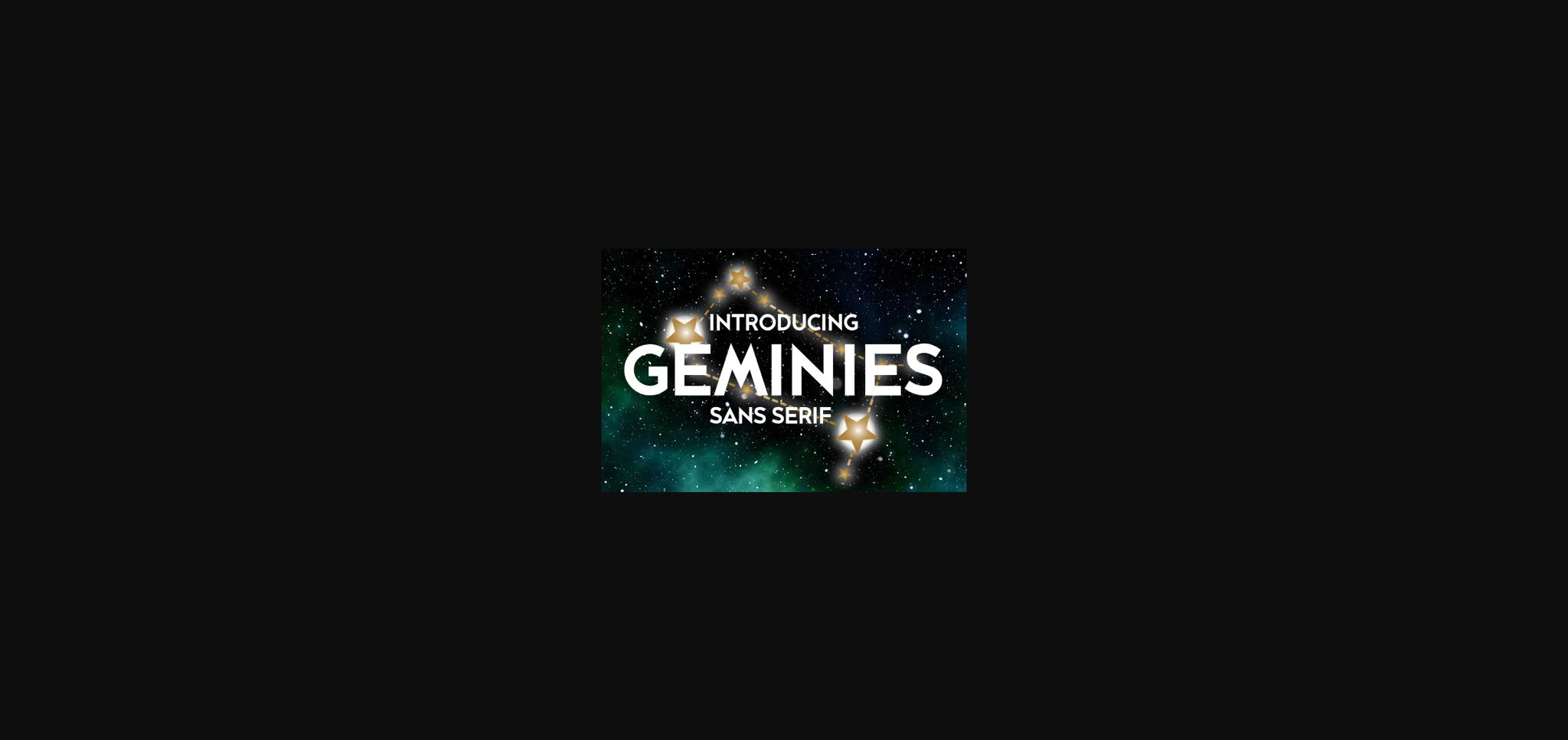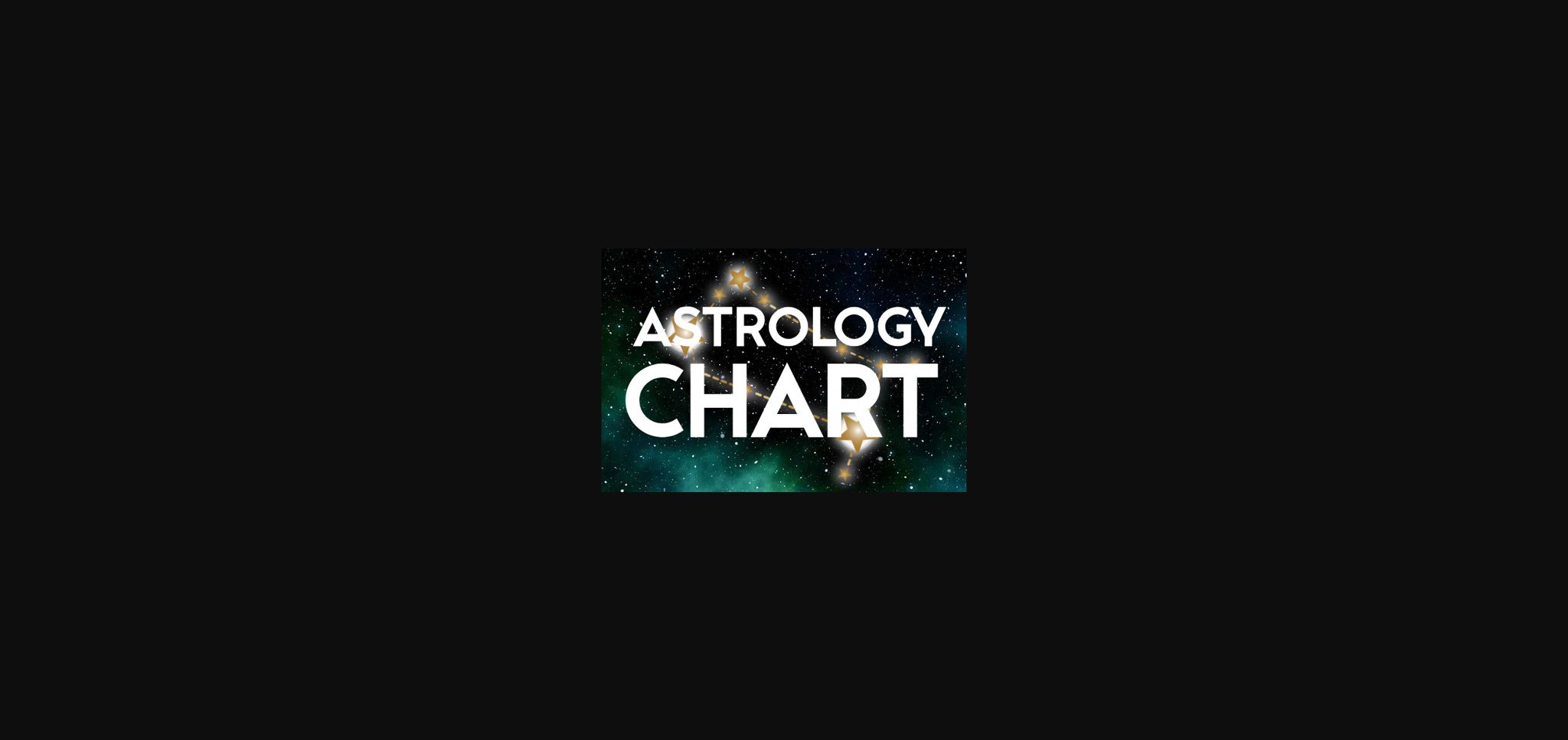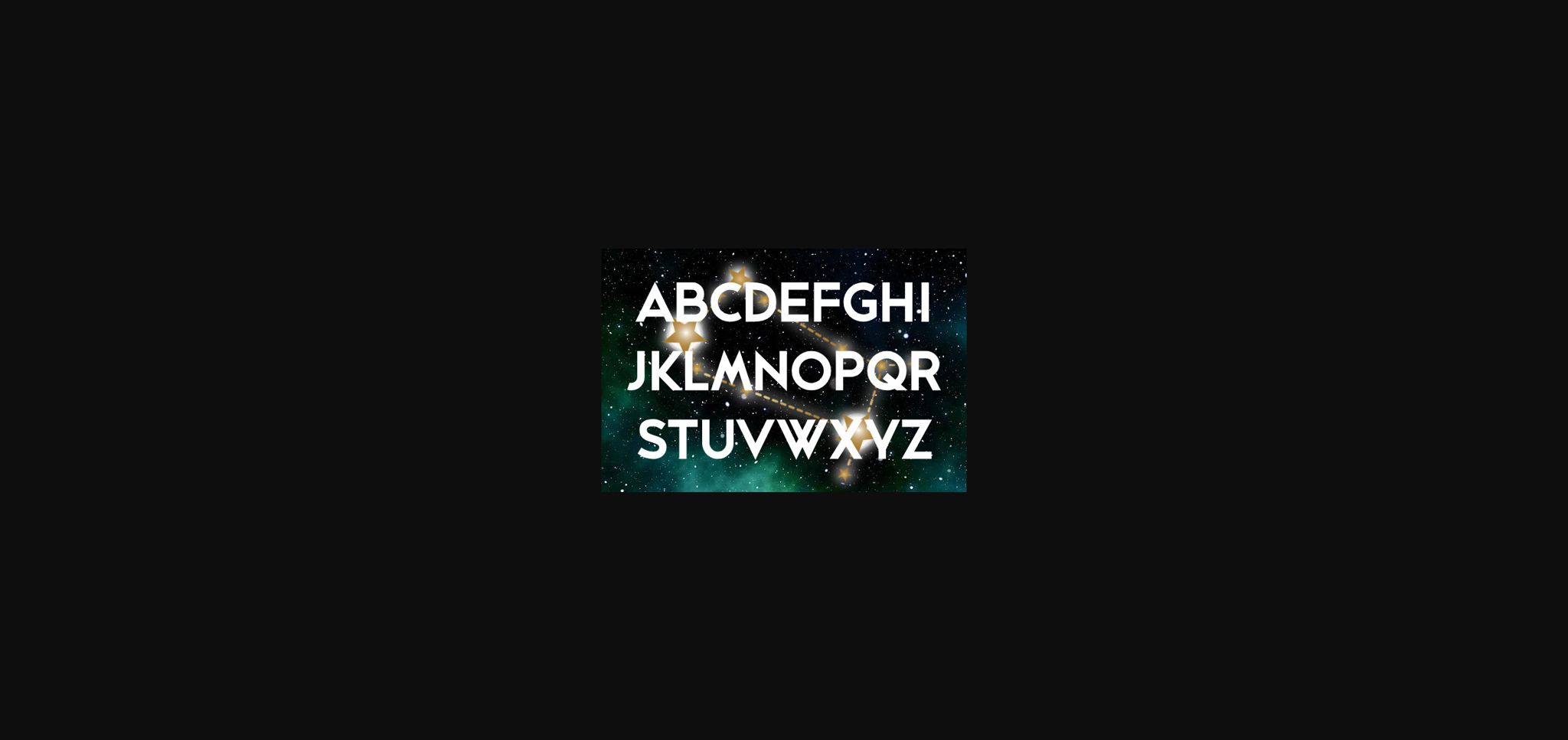
HomeSans Serif FontsGeminies Font Sans Serif Fonts Geminies Font FacebookXPinterestWhatsApp 1 of 5 ... Geminies Font Poster 2... Geminies Font Poster 3... Geminies Font Poster 4... Geminies Font Poster 5... About Geminies Font Geminies is a stylish Sans Serif font That will look awesome on any of Your designs. Use this font on t-shirts, posters and flyers. DOWNLOAD NOW People also explored Seriously Font Debonair Brown Bag Font Manttes Font Oslotrain Font Mountecarlo Font Sync Font Sunflower Font Shanky Font 413 0 TagsGeminies Font Previous articleStudent FontNext articleFarming Collector Font LEAVE A REPLY Cancel reply Comment: Please enter your comment! Name:* Please enter your name here Email:* You have entered an incorrect email address! Please enter your email address here Website: Save my name, email, and website in this browser for the next time I comment. Personal Use Free Urkelian Personal Use Free Read more about this font Cataclysmo Personal Use Free Read more about this font Earwig Factory Personal Use Free Read more about this font Waturaden Personal Use Free Read more about this font BLOG Where to Buy American Fonts Online in 2024 Where to Buy American Fonts Online: The Ultimate Guide for 2024 Looking for the perfect American font to elevate your design projects? You're in the... Modern Sans-Serif Fonts That Brands Love in 2025 To increase your work productivity, choose the most readable fonts. Top 10 Handwritten Fonts That Elevate Your Designs